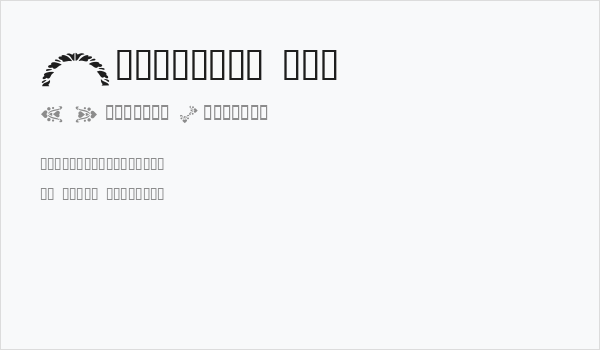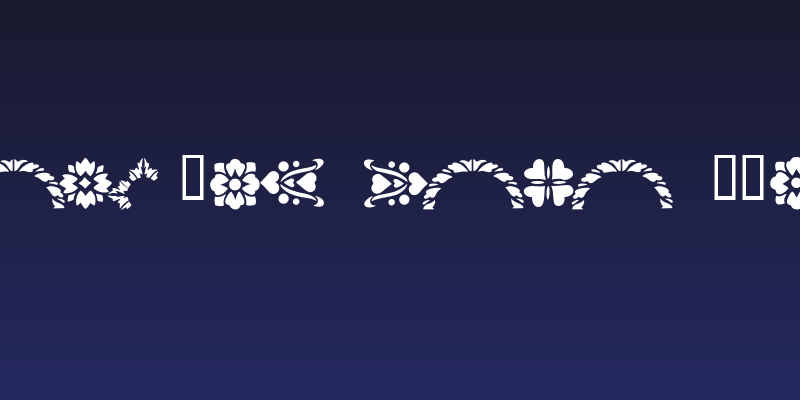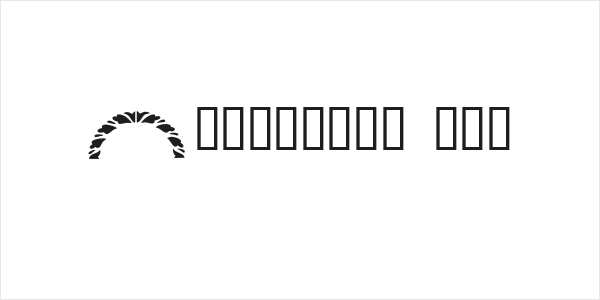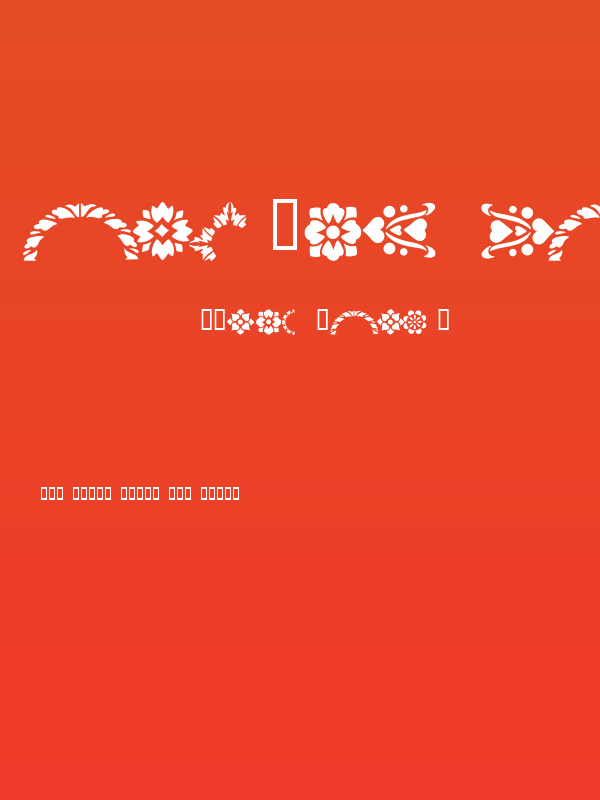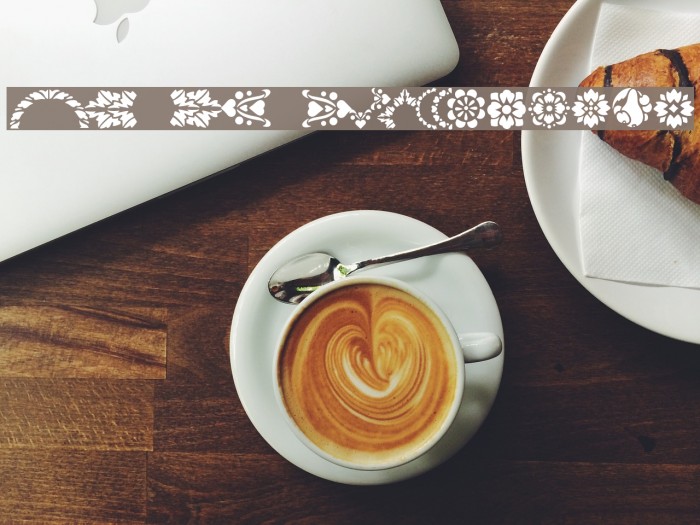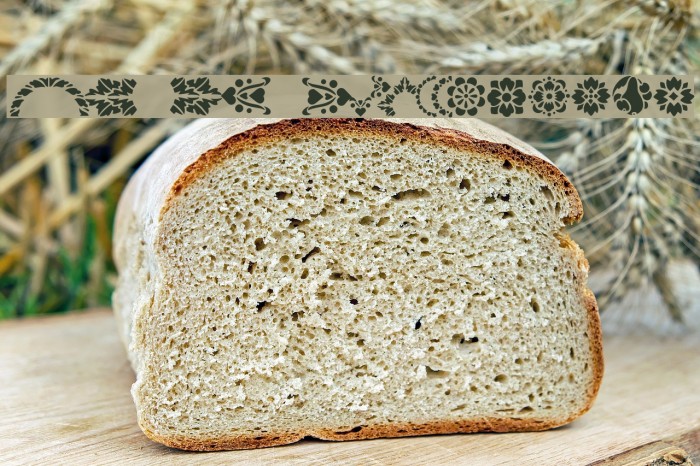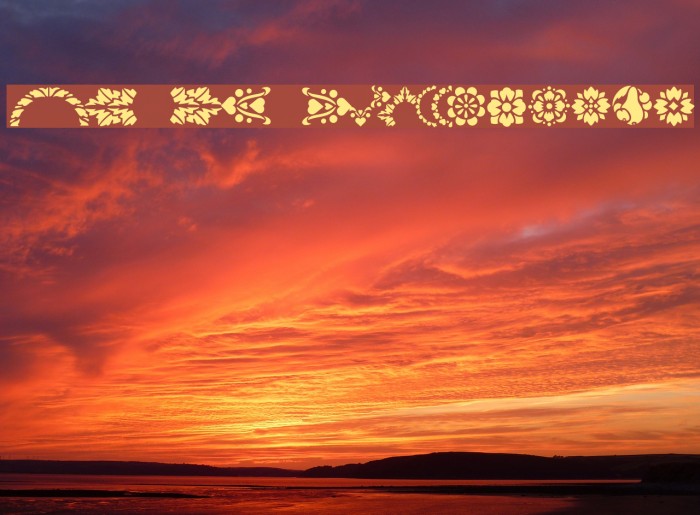
Americana Two Font
Americana Two Description
This is not a valid font. The image contains decorative elements and patterns rather than a complete set of alphanumeric characters or symbols typically found in a font. The designs are intricate and floral, suggesting a decorative or ornamental style rather than functional typography.
| Use Case | Decorative elements, not suitable for text. |
| Proposed Projects | These decorative elements could be used for borders, embellishments in graphic design, or as part of a decorative theme in print materials. |